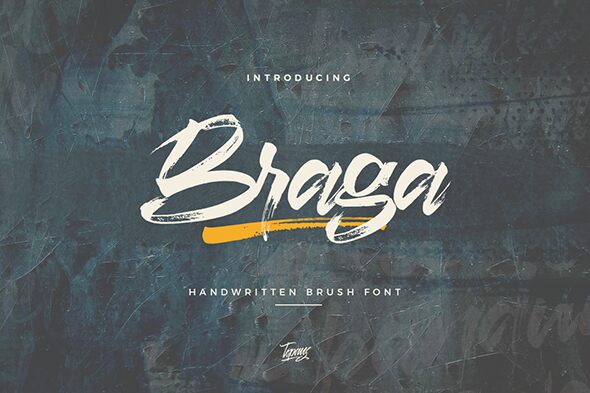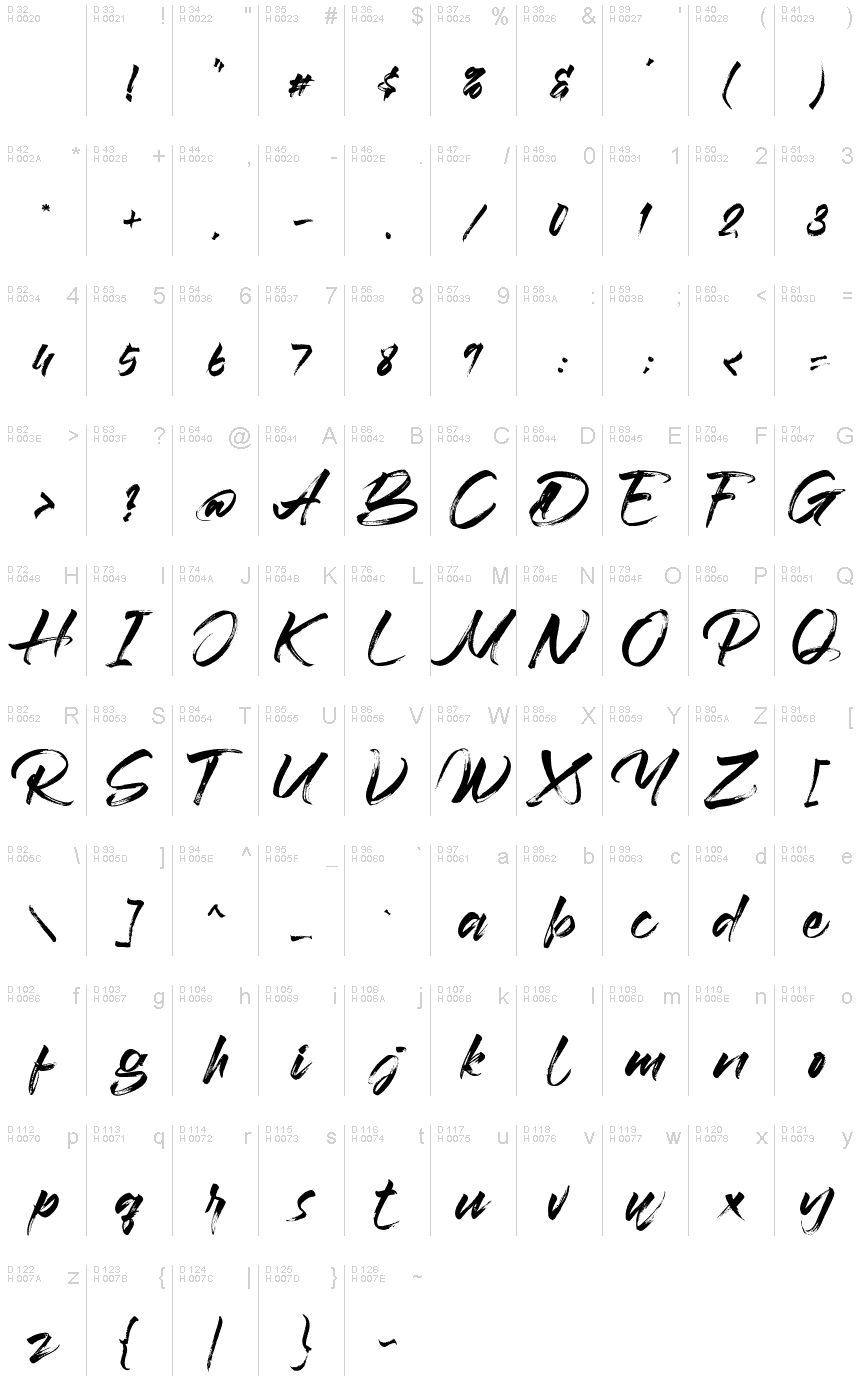
Braga
Braga, crafted by the talented Topan Sofyan, is a captivating brush font that exudes artistic flair and authenticity. With its bold strokes and fluid lines, this font adds a touch of creativity and dynamism to any project it graces. Perfectly suited for branding endeavors, such as fashion labels or coffee shops seeking a trendy aesthetic. Additionally, Braga's versatility shines in product packaging design, providing an eye-catching appeal that draws customers in. Whether you're working on logo designs, advertising campaigns or social media graphics, Braga is the go-to choice for those seeking a contemporary and visually stimulating font solution.